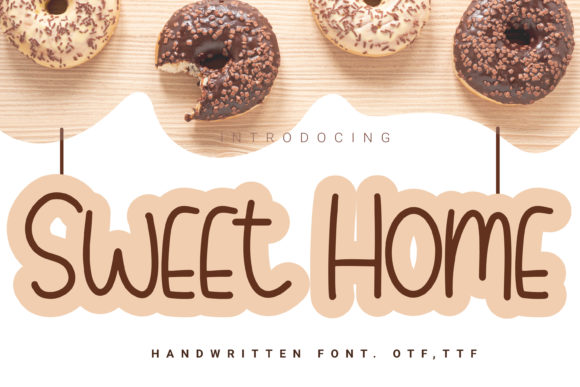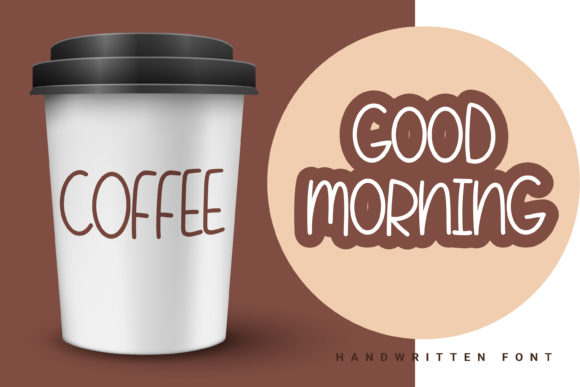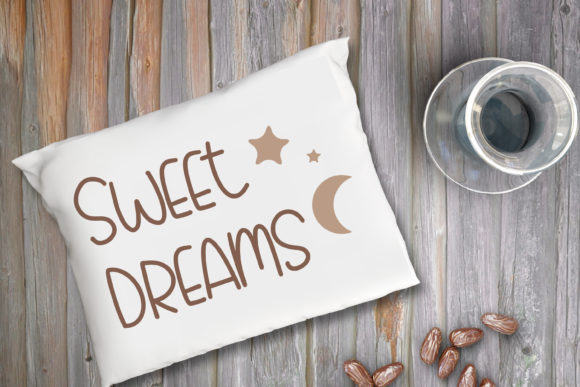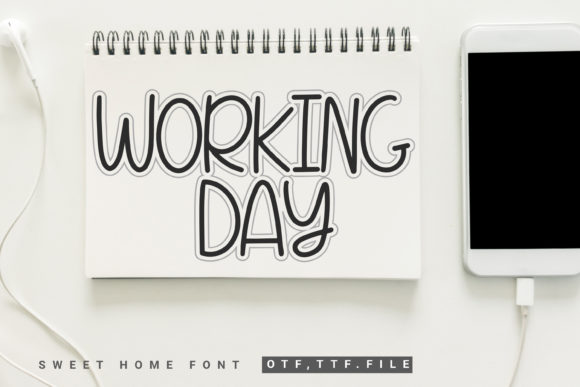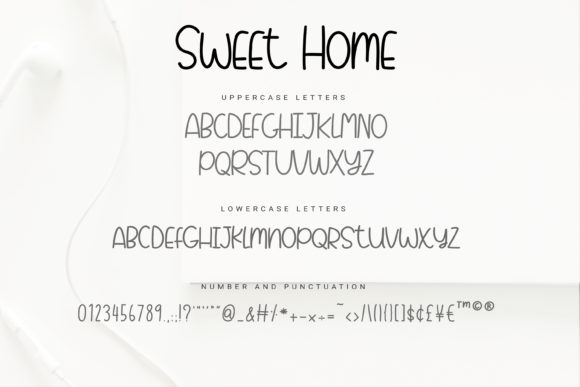
Sweet Home Font
About Sweet Home Font
Sweet Home is a cute and quirky handwritten font. Whether you’re looking for fonts for Instagram or calligraphy scripts for DIY projects, this font will turn any creative idea into a true piece of art!